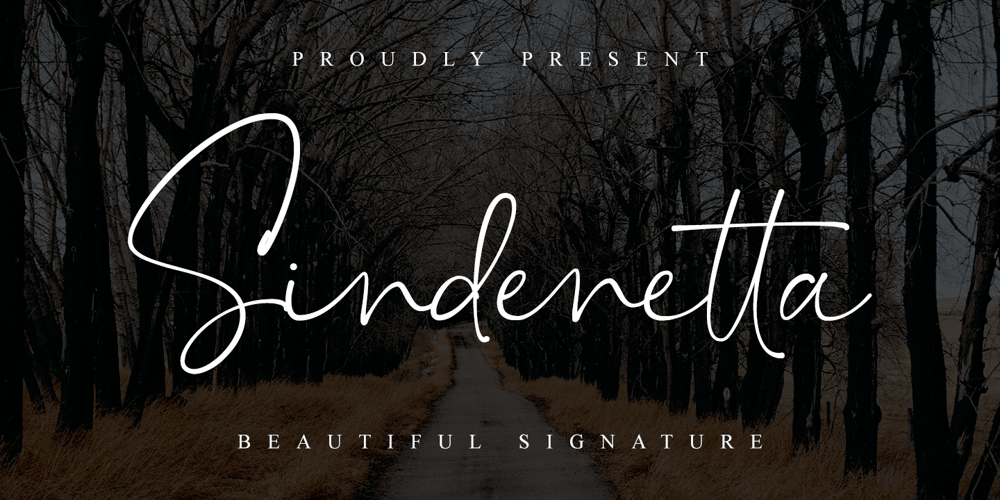
Sindenetta Font Family was designed by Abdul Malik Wisnu and published by Almarkha Type. Sindenetta contains 2 styles and family package options. Sindenetta – Beautiful Signature, this font is great for your creative projects such as watermark on photography, and perfect for logos & branding, photography, invitation, watermark, advertisements, product designs, stationery, wedding designs,label, product packaging, special events or anything that need Signature taste.